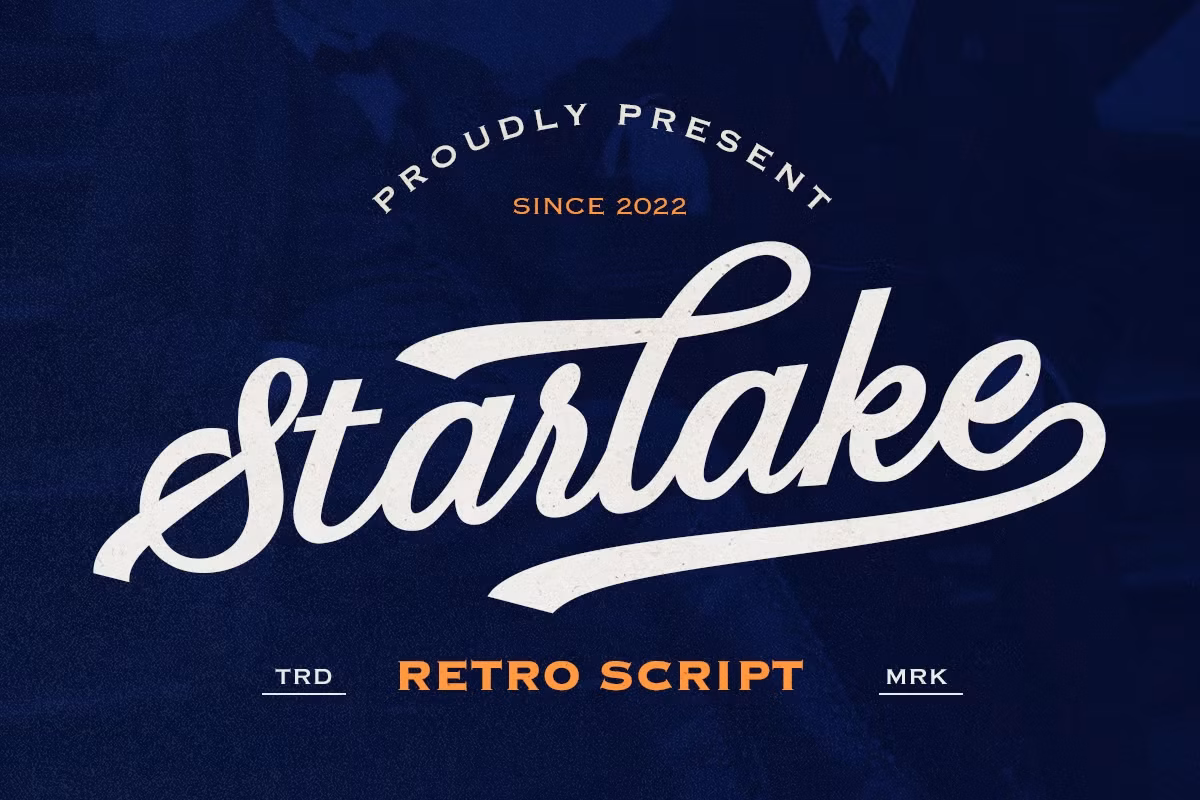
Starlake – Retro Script Font Free Download is a nostalgic and stylish typeface inspired by vintage signage and classic 70s lettering. Perfect for logos, t-shirt designs, posters, and retro-themed branding, this font brings groovy charm and timeless personality to your creative work.
With its flowing curves and bold character strokes, Starlake – Retro Script Font Free Download captures the essence of old-school cool while remaining versatile for modern applications. Whether you're designing for a throwback event or creating eye-catching merchandise, this script font delivers a fun, expressive look. Give it a try and see how it can add a dose of retro flair to your next project before grabbing the commercial license.